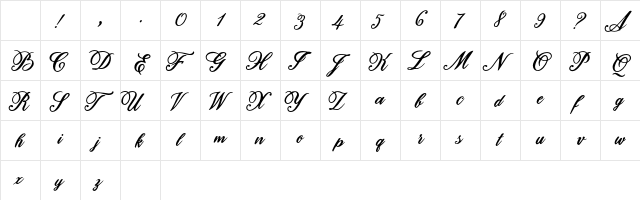
Complete Unlocking Your Dreams Regular glyph index. Displaying only characters natively supported by Unlocking Your Dreams Regular font.
Unlocking Your Dreams is a composed and adaptable typeface that performs quietly and consistently across a wide range of design contexts.